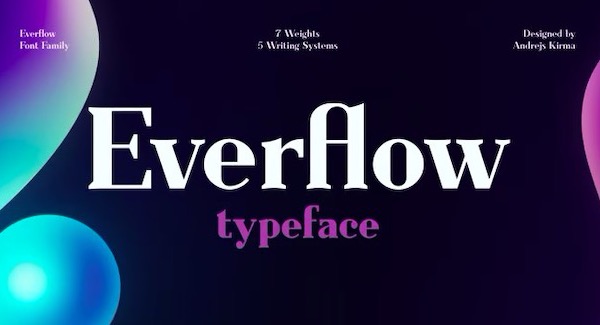
Everflow is a classy and modern serif font family that was designed by Andrejs Kirma and published by Andrejs Kirma. This basic typeface includes 14 styles along with its family package options.
Everflow is the third typeface family by Andrejs Kirma. Coming from the background of creating a large amount of geometric icons, he set the goal of creating geometric typefaces in a variety of styles and consequently exploring new opportunities in typeface design.
Everflow Serif Font